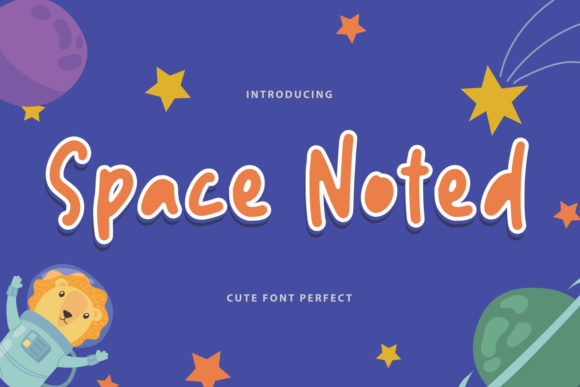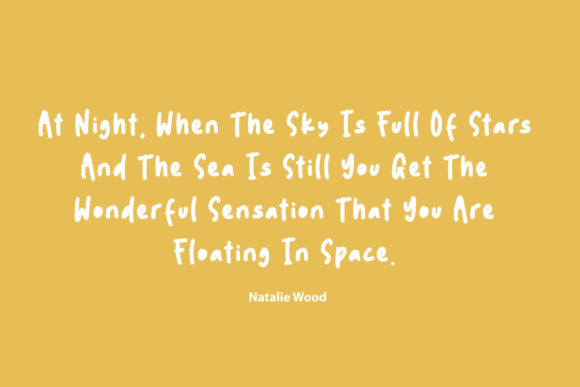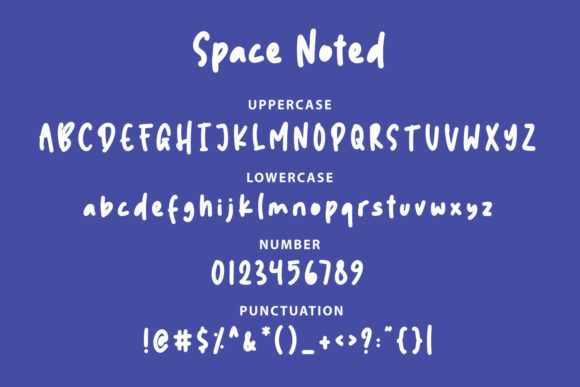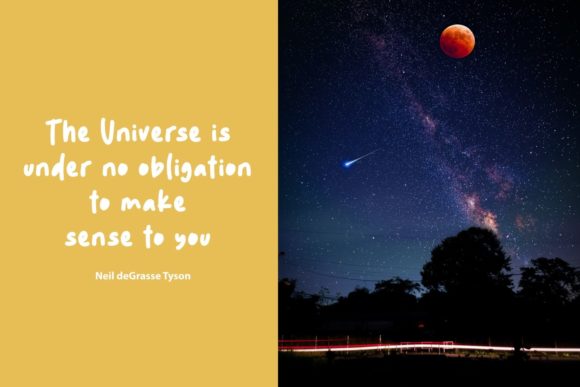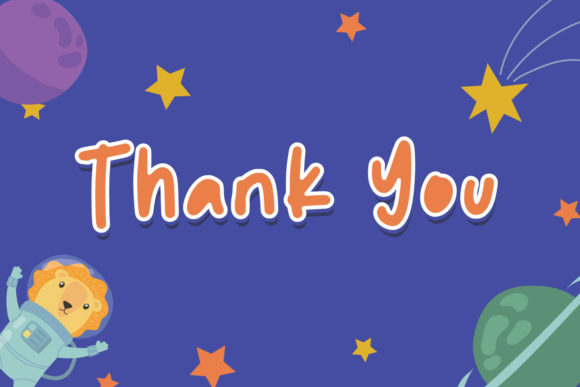
About Space Noted Font
Space Noted is a trendy and readable handwritten font. It can easily be matched to an incredibly large set of projects, so add it to your creative ideas and notice how it makes them stand out!